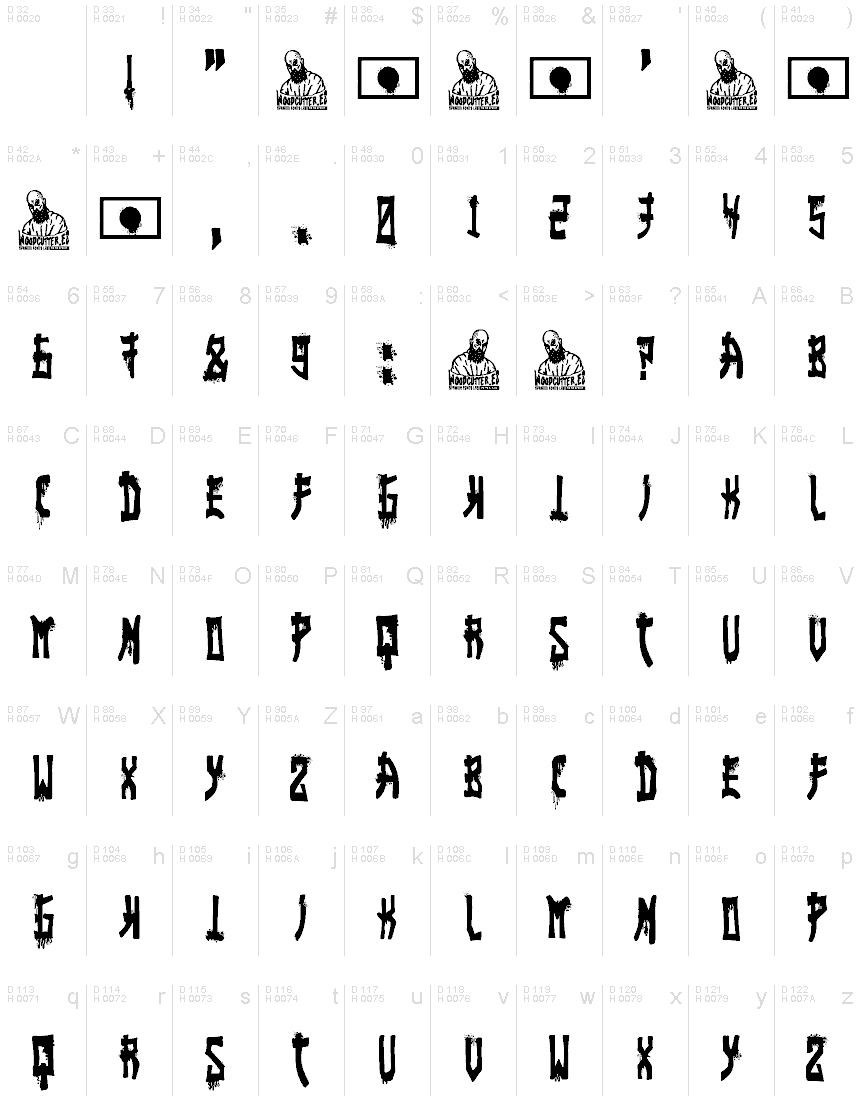
Bloody Japan
Bloody Japan font is a free grungy display font from Woodcutter inspired by rebellious Japanese culture. The distressed and irregular texture created in this condensed all-caps typeface creates an edgy aesthetic that is unconventional, impactful, and attractive. Don’t let the name mislead you into thinking that this font would only work for Japanese-related design projects for it’s simply not true.
Bloody Japan has a rebellious look ideal for branding designs of tattoo or piercing shops, nightclubs, t-shirt prints, posters, book covers for scary stories or magazines targeted at teenagers. Use it to create stickers and wall art; does best with audiences of younger audience.